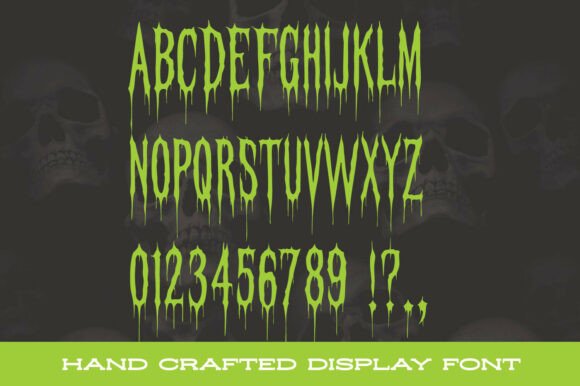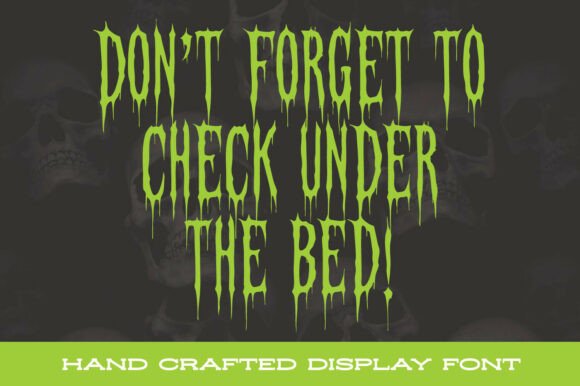
Introduction to Slivertine Font
As designers, we’ve all had that moment when the perfect font comes along and elevates our creative project to the next level. For me, it was when I stumbled upon the Slivertine Font. Its haunting display font style is like a siren’s call, beckoning me to create something dark, mysterious, and unforgettable. With its tall, spindly letterforms and unsettling drips, Slivertine Font is the perfect companion for any design that needs a sharp injection of dread.
Whether you’re working on a horror title, an occult design, or any project that requires a touch of the unknown, Slivertine Font is a valuable design resource. Its high quality and unique style make it a standout choice for designers looking to create something truly memorable. And the best part? You can download it for free, giving you the freedom to experiment and push the boundaries of your creativity.
- Features a unique, modern design that sets it apart from other fonts, making it a valuable design resource
Honest Review: Slivertine Font
As a designer, I’m always on the lookout for unique and high-quality design resources to enhance my creative projects. Recently, I stumbled upon the Slivertine Font, and I’m excited to share my honest review.
- High-quality typography: The Slivertine Font boasts crisp and clear typography that’s perfect for any design project.
- Limited character set: The Slivertine Font has a limited character set, which may not be suitable for projects that require a wide range of characters.
- No bold or italic weights: The font only comes in a regular weight, which may not be ideal for designs that require bold or italic text.
Overall, I’m impressed with the Slivertine Font’s high-quality typography and transparent background. While it may have some limitations, it’s still a valuable design resource that’s perfect for creative projects. I’d definitely recommend it to fellow designers looking for a free and high-quality font.
The Slivertine Font is a high-quality design resource perfect for creative projects that require a unique touch. With its transparent background, it can be easily layered over images or used as a standalone element.
Tips for Getting the Most Out of Slivertine Font
For best results, use the Slivertine Font with a high-quality image or background to create a striking visual effect. Experiment with different font sizes and styles to add depth and interest to your design.